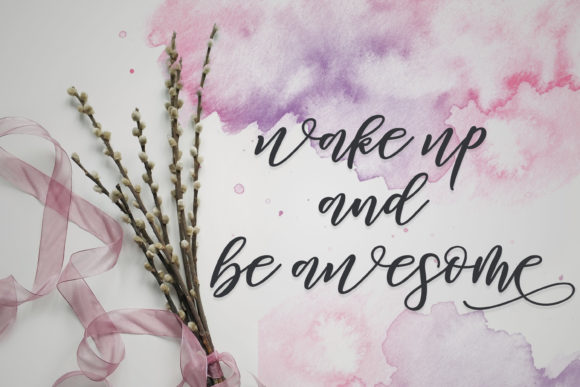
The Elegance of Diary Amily Font: A Comprehensive Guide
In the world of typography, few fonts manage to capture the essence of elegance and sophistication as effectively as the Diary Amily font. This beautiful script font has been making waves in the design community, and for good reason. Inspired by the intimate and personal nature of a woman’s diary, Diary Amily brings a touch of classic charm to any design project. In this article, we’ll delve into the world of Diary Amily font, exploring its origins, features, and uses, as well as provide tips on how to make the most of this stunning typeface.
What is Diary Amily Font?
The Diary Amily font is an elegant script font that draws its inspiration from the handwritten entries found in a woman’s diary. The font’s creator sought to capture the essence of the personal and emotional writings that often find their way into diaries, transforming them into a digital format that can be used in a wide range of design applications. The result is a font that exudes warmth, sophistication, and a sense of nostalgia.
Diary Amily is characterized by its flowing script, delicate lines, and elegant letterforms. Each letter is carefully crafted to convey a sense of intimacy and vulnerability, making it perfect for designs that require a personal touch. The font’s unique charm lies in its ability to evoke emotions and create a connection with the reader, making it an excellent choice for a variety of design projects.
Key Features and Benefits of Diary Amily Font
The Diary Amily font boasts several key features that make it an attractive choice for designers. Some of its notable benefits include:
- Elegant and Sophisticated: Diary Amily’s script font is perfect for designs that require a touch of elegance and sophistication.
- Versatile: The font can be used in a wide range of design applications, from branding and advertising to wedding invitations and personal stationery.
- Emotional Connection: Diary Amily’s unique charm helps create an emotional connection with the reader, making it perfect for designs that aim to evoke feelings or convey a personal message.
- Highly Readable: Despite its elegant nature, Diary Amily is highly readable, making it suitable for both headings and body text.
Use Cases for Diary Amily Font
The Diary Amily font is incredibly versatile and can be used in a variety of design projects. Here are some popular use cases:
- Branding: Use Diary Amily to create a sophisticated brand identity that exudes elegance and refinement.
- Wedding Invitations: The font’s romantic and intimate feel makes it perfect for wedding invitations, save-the-date cards, and other wedding-related designs.
- Magazines and Editorials: Diary Amily’s elegant script font is well-suited for magazine and editorial designs, adding a touch of sophistication to any publication.
- Mugs and Merchandise: The font’s readability and charm make it an excellent choice for designing mugs, t-shirts, and other merchandise.
- Business Cards: Use Diary Amily to create elegant and professional business cards that make a lasting impression.
- Posters and Quotes: The font’s unique charm makes it perfect for designing inspirational posters, quote cards, and other motivational materials.
Tips and Tricks for Using Diary Amily Font
To make the most of the Diary Amily font, here are some tips and tricks to keep in mind:
- Pair with Simple Fonts: Pair Diary Amily with simple, sans-serif fonts to create a striking contrast and add visual interest to your design.
- Use for Headings: Diary Amily is perfect for headings and titles, but consider using a simpler font for body text to maintain readability.
- Experiment with Colors: The font’s elegance shines through in a variety of colors, so don’t be afraid to experiment with different hues and shades.
- Pay Attention to Spacing: Make sure to adjust the spacing between letters and words to create a harmonious and balanced design.
In conclusion, the Diary Amily font is a stunning script font that brings a touch of elegance and sophistication to any design project. Its unique charm, versatility, and readability make it an excellent choice for a wide range of applications, from branding and advertising to wedding invitations and personal stationery. By following the tips and tricks outlined in this article, you can make the most of this beautiful font and create designs that exude refinement and style.